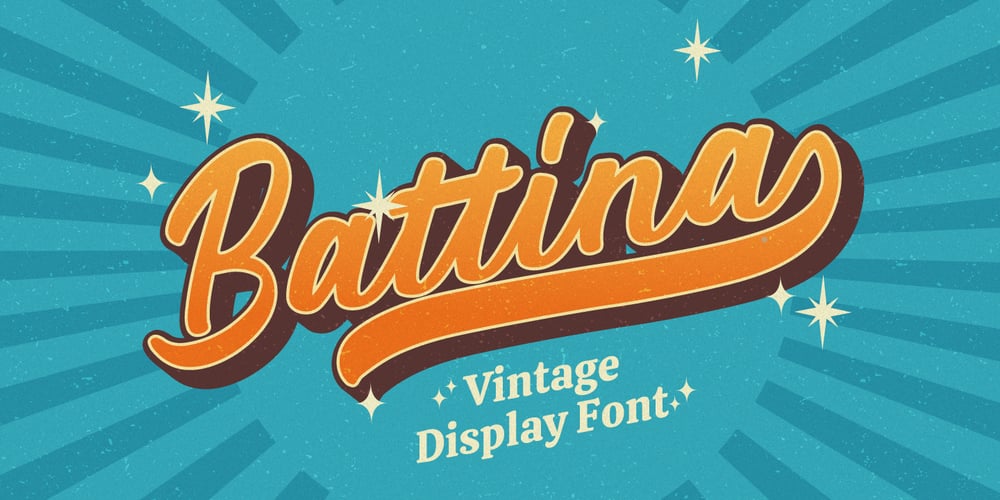
Battina Font Family was designed by Fadli Ramadhan Iskandar and published by Attype Studio. Battina contains 3 styles and family package options. Introducing Battina – Inspired by typeface on 70s era, Battina has the vintage font & retro font style.with 2 font style, It’s super easy to use 3D effect with Battina family font.Two style Font: Regular & ExtrudedBattina is perfect for children product, branding, logo, invitation, stationery, product packaging, merchandise, monogram,blog design, game titles, cute style design, Book/Cover Title and more.Features :- Battina Extruded – Battina Ending Swash – Ligatures- Multilingual Support – Made it into separated file to make it easier to use by beginner & separated file user can use the font with software which doesn’t accept open type features.